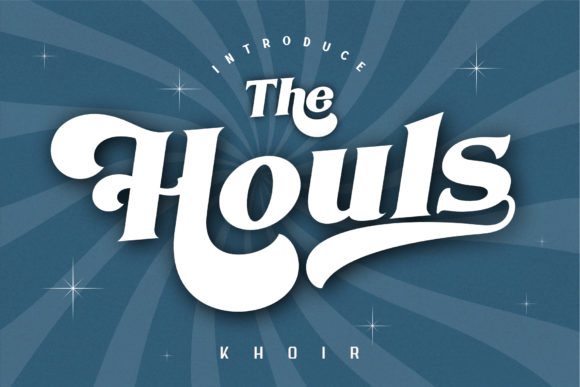
Journey back in time to the groovy era of the 60s and 70s with The Houls Font, a retro-inspired serif font that oozes vintage charm and timeless appeal. Crafted by mrkhoir012, this display family font is a true gem for designers seeking a touch of nostalgia in their creative projects.
The Houls Font captivates with its distinct character, reminiscent of classic typewriters and nostalgic signage. Its elegant curves and sharp edges blend harmoniously, creating a visual symphony that transports you to a bygone era. Each letterform is meticulously designed to evoke a sense of authenticity, adding a touch of retro flair to your designs.
With The Houls Font, you have the power to transform ordinary text into captivating headlines, eye-catching logos, and stunning posters. Its versatility extends to branding, packaging, and even web design, making it a versatile tool for a wide range of creative endeavors.
Unleash your creativity and embark on a typographic adventure with The Houls Font. Its retro charm is guaranteed to add a touch of nostalgia and sophistication to your designs, leaving a lasting impression on your audience. Embrace the allure of the past and elevate your projects to new heights with this remarkable font.